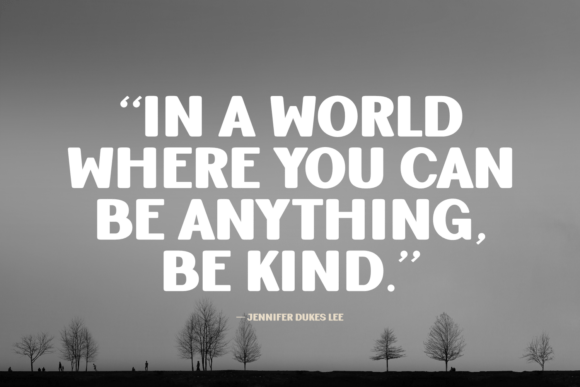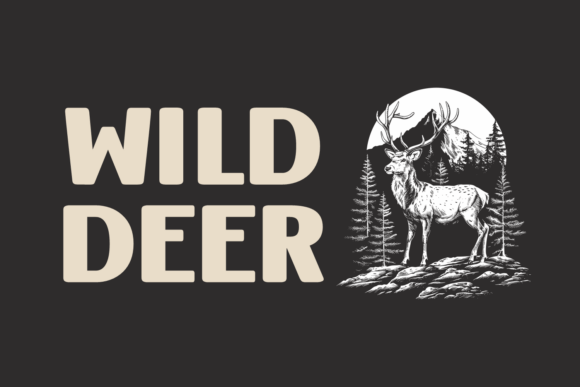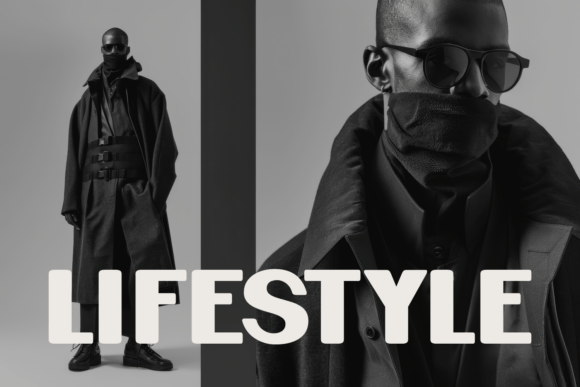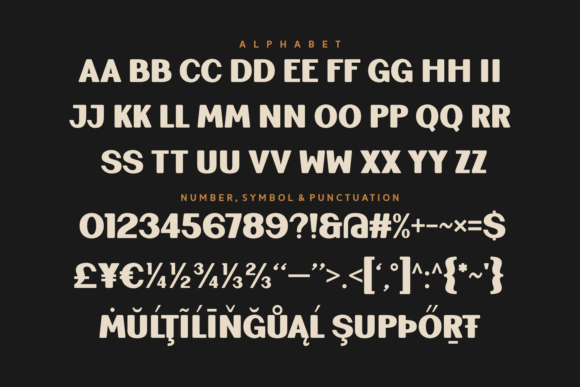
Unveiling the Elegance of “Behind My Smile Font”
In the vast universe of typography, certain fonts stand out for their elegance, versatility, and modern functionality. “Behind My Smile” is one such remarkable typeface that has been making waves in the design world. This Sans Serif font is not just a visual treat but a comprehensive tool for designers and crafters looking to infuse their projects with a touch of sophistication and charm.
A Perfect Blend of Elegance and Modernity
“Behind My Smile” effortlessly blends elegance with modern functionality, making it an ideal choice for a wide range of design projects. Its clean and smooth finish is particularly suited for professional photography, where clarity and precision are paramount. This font translates beautifully into accent designs and apparel, offering a fresh and contemporary look that is sure to captivate audiences.
One of the key strengths of “Behind My Smile” is its versatility. Whether you’re working on a book cover, seeking to elevate your brand’s visual identity, or designing greeting cards, this typeface proves to be an excellent choice. Its clean aesthetics make it perfect for creating impactful impressions on:
• Magazine covers, where it can add a touch of sophistication and allure.
• Product packaging, enhancing the visual appeal and making products stand out.
• Greeting cards, offering a fresh and modern way to express sentiments.
Staying Ahead of Trends with “Behind My Smile”
In the fast-paced world of design, staying ahead of trends is crucial. “Behind My Smile” offers designers and crafters the opportunity to create trendy and appealing designs. Its charming character makes it an excellent choice for:
• Logo types, where a distinctive and memorable font can make all the difference.
• Quotes and typographic artworks, adding a touch of elegance and thoughtfulness.
• T-shirt designs, providing a stylish and contemporary look that appeals to a wide audience.
Extensive Multilingual Support
“Behind My Smile” is more than just a lovely font; it is a tool that empowers creativity without boundaries. With extensive multilingual support, designers can experiment with various languages, ensuring their work reaches and resonates with a global audience. This feature is particularly beneficial for brands and creators looking to expand their reach and connect with diverse communities.
Why Choose “Behind My Smile”?
Choosing “Behind My Smile” for your design projects comes with numerous benefits:
• Elegance and Modernity: Offers a perfect blend of elegance and modern functionality.
• Versatility: Suitable for a wide range of design applications, from professional photography to apparel designs.
• Multilingual Support: Enables creators to produce work that is accessible and appealing to a global audience.
• Impactful Impressions: Creates clean, smooth, and impactful designs for various mediums, including magazine covers and product packaging.
“Behind My Smile” is not just a font; it’s a design companion that offers elegance, versatility, and the ability to create impactful impressions. Whether you’re a designer, a crafter, or a brand looking to elevate your visual identity, this typeface has the potential to transform your projects. With “Behind My Smile,” you’re not just keeping up with design trends; you’re setting them. Embrace the charm and functionality of “Behind My Smile” and take your designs to new heights.